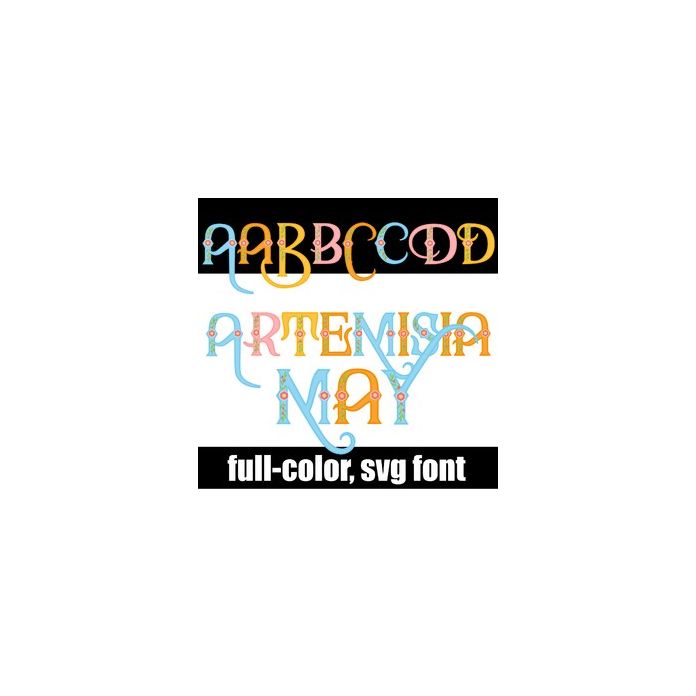
This full-color font features and uppercase with flourished tails and a lowercase without. All the letters feature florals. There is an alt case with additional colors that you can access through your system or Silhouette's glyph map.